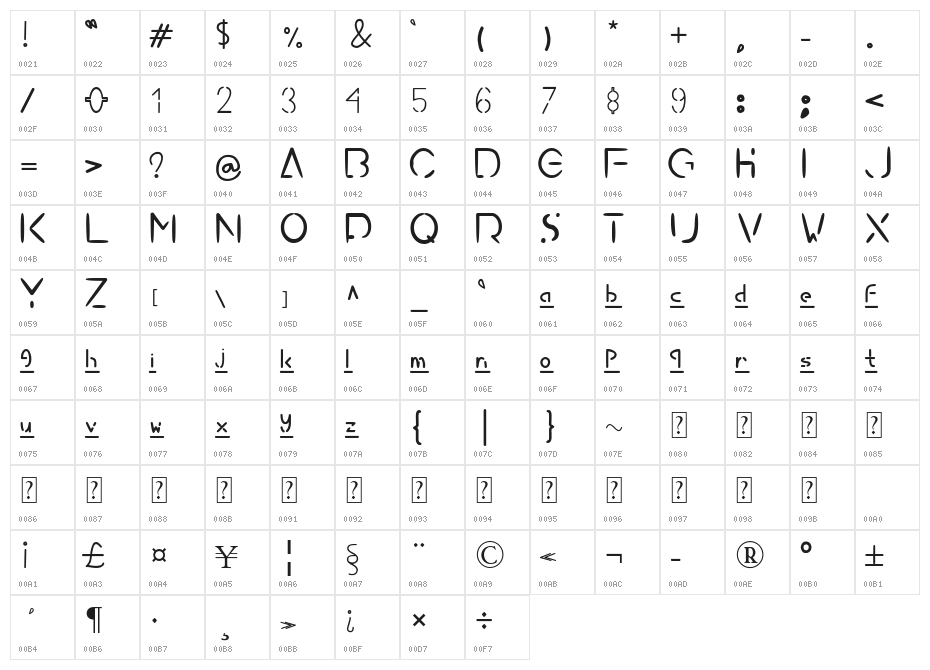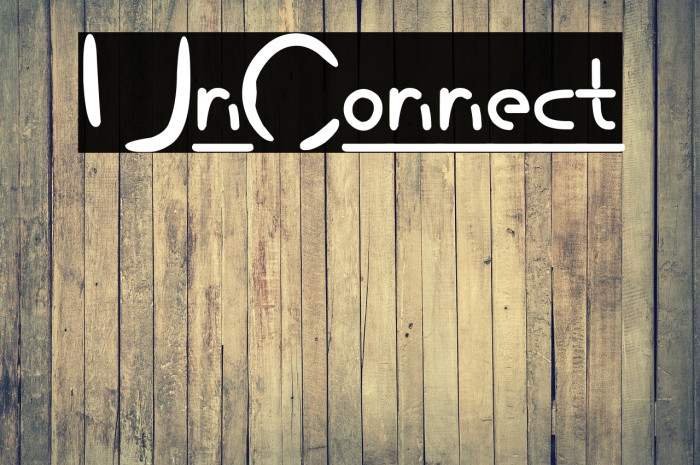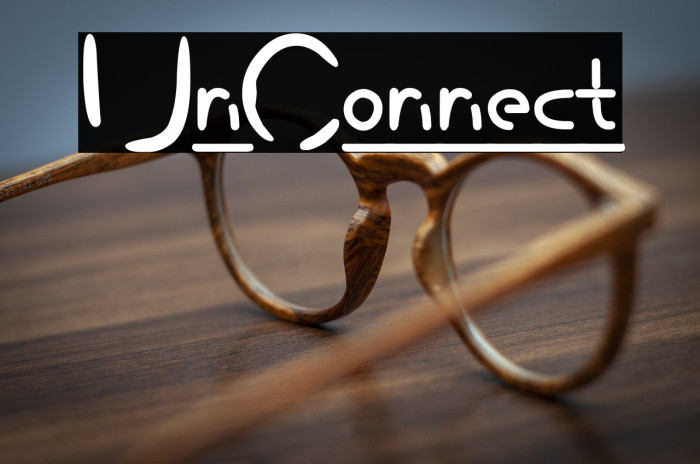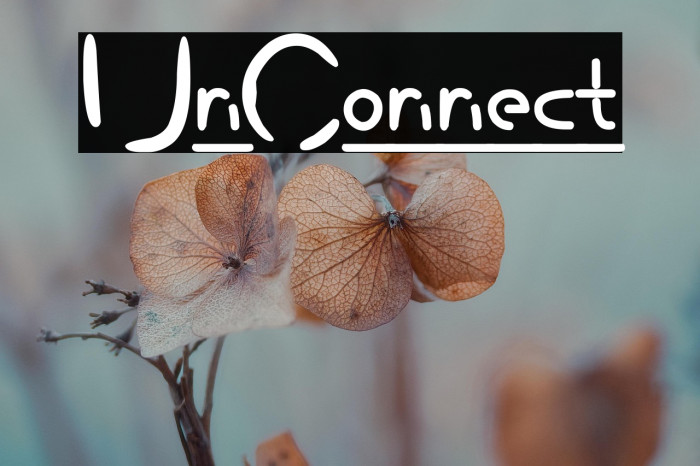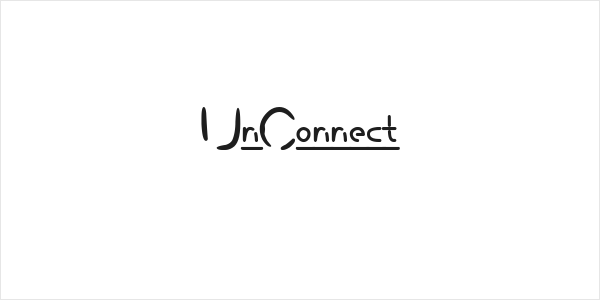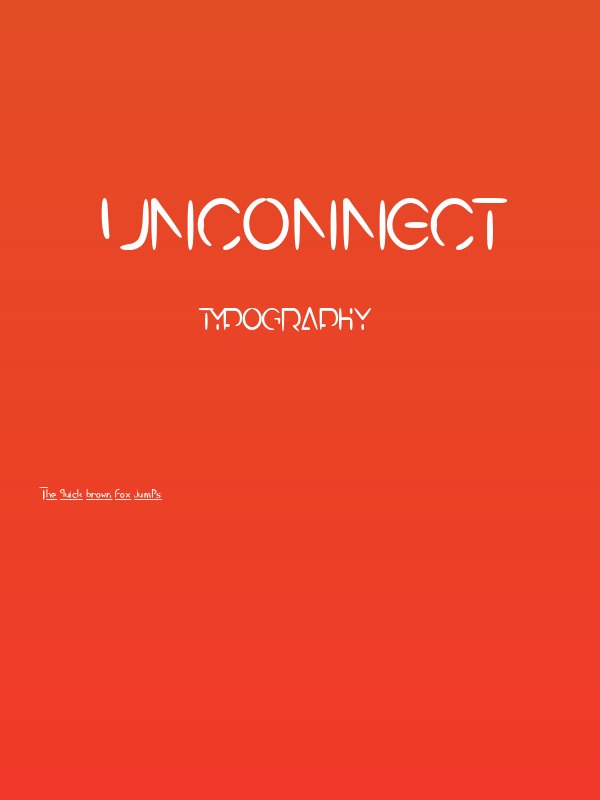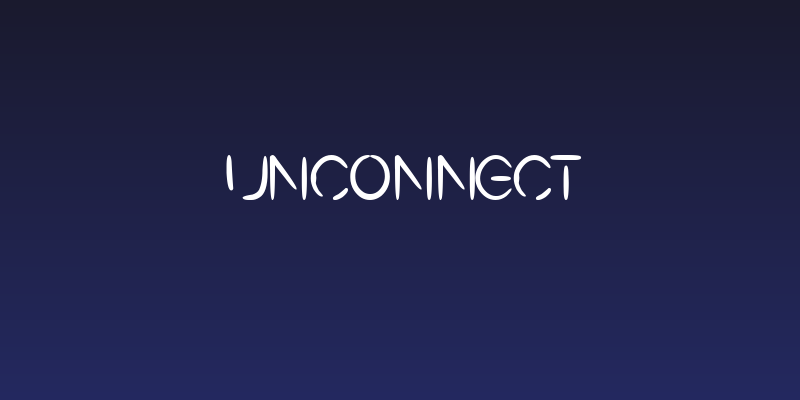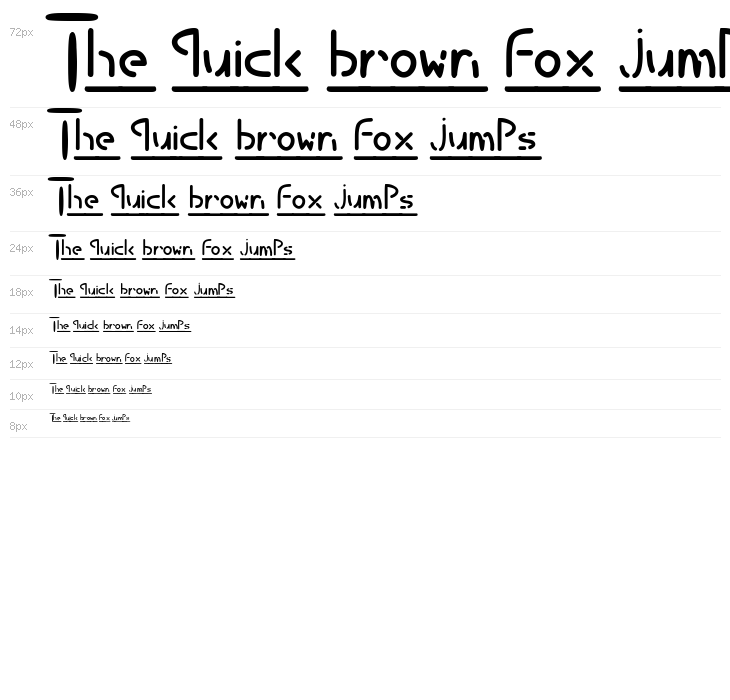
UnConnect Font
UnConnect Description
This font features a unique, disconnected style where each character is composed of separate strokes, giving it a modern and artistic appearance. The uppercase letters are bold and angular, while the lowercase letters maintain a consistent flow with a slightly more rounded approach. Numbers and special characters follow the same disconnected theme, creating a cohesive yet distinct look. The font's design is both eye-catching and unconventional, making it suitable for creative projects that require a standout typeface.
| Use Case | Logos, Headlines, Posters |
| Proposed Projects | Ideal for branding, logo design, album covers, and creative posters. |